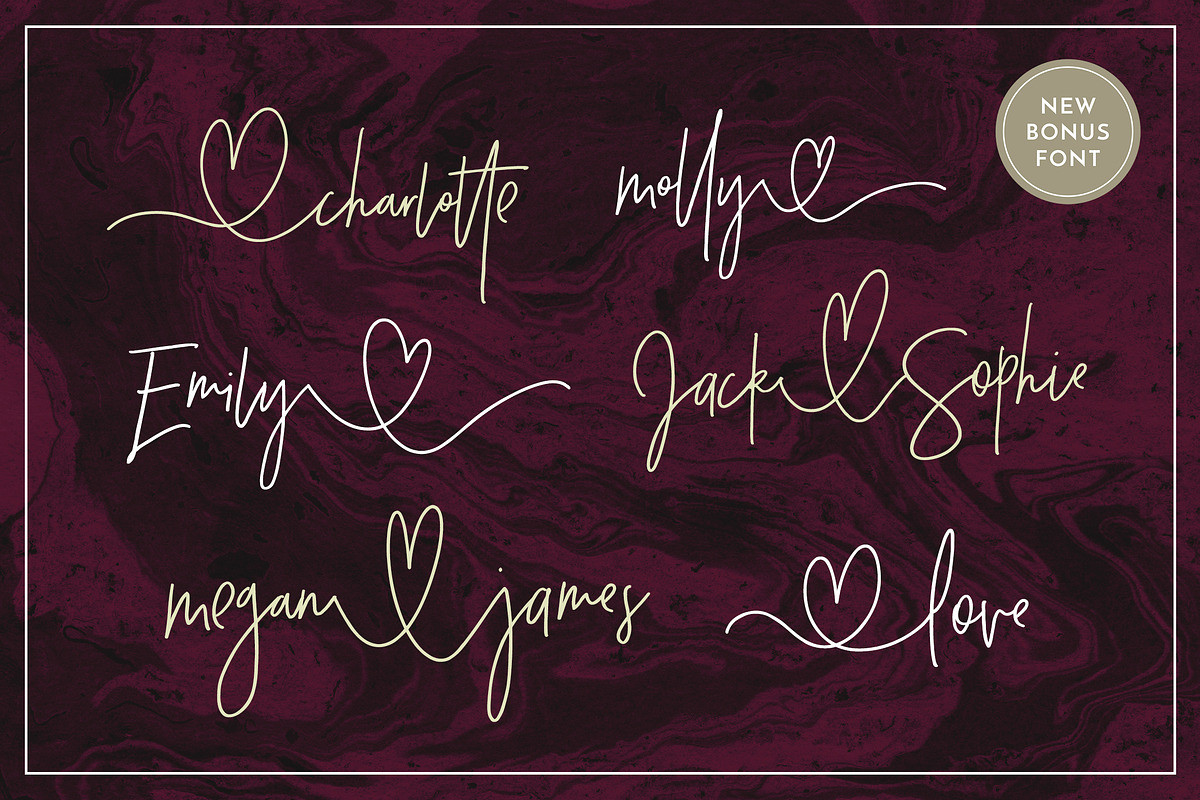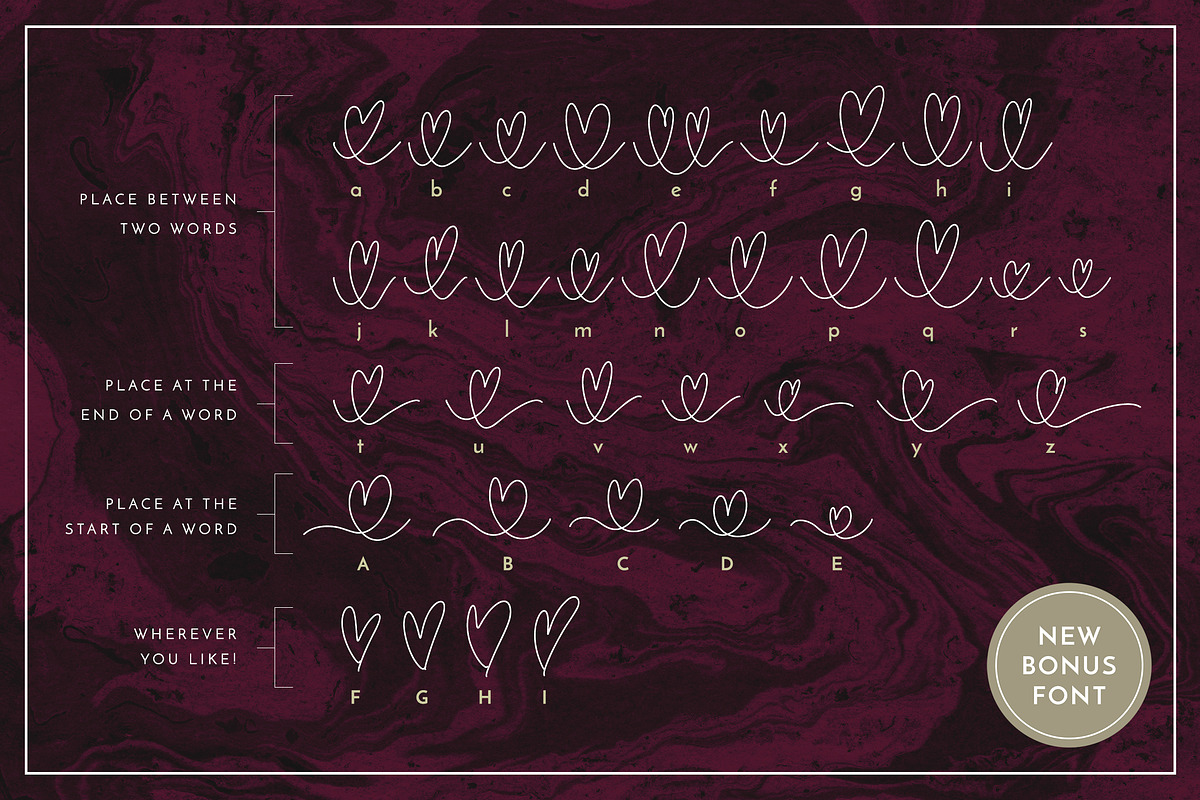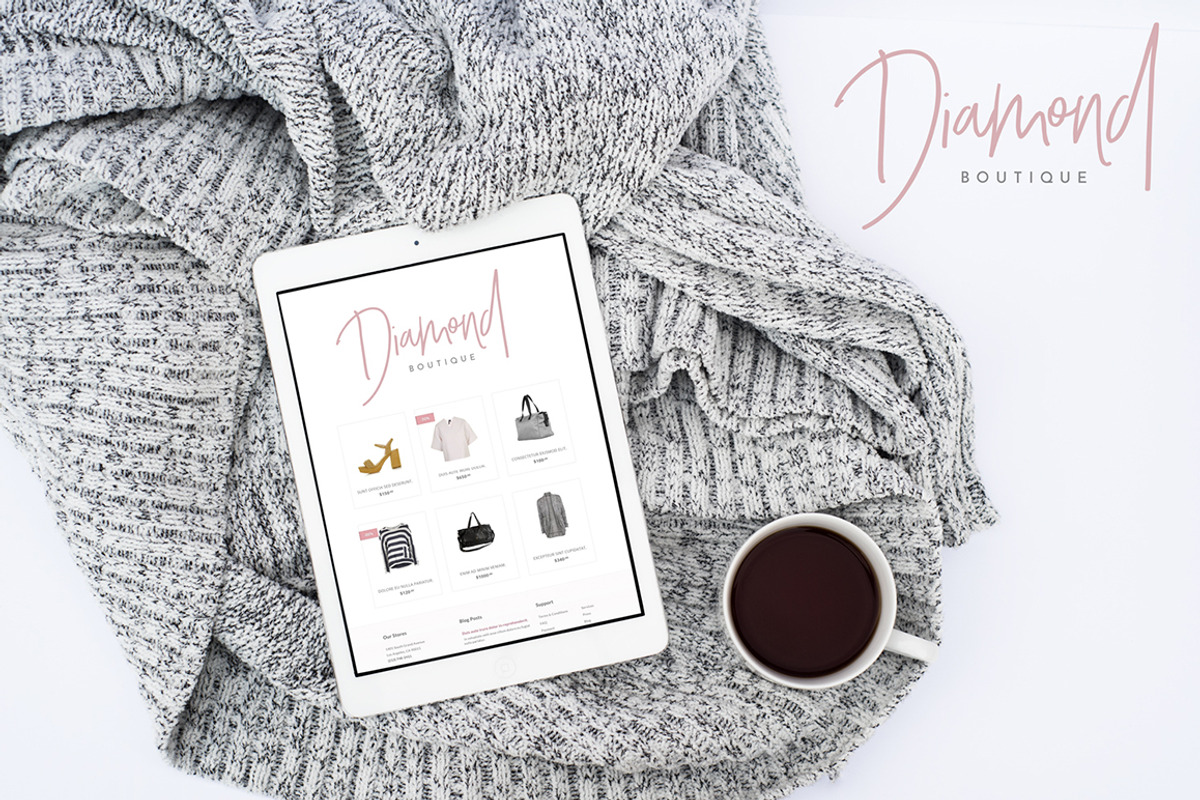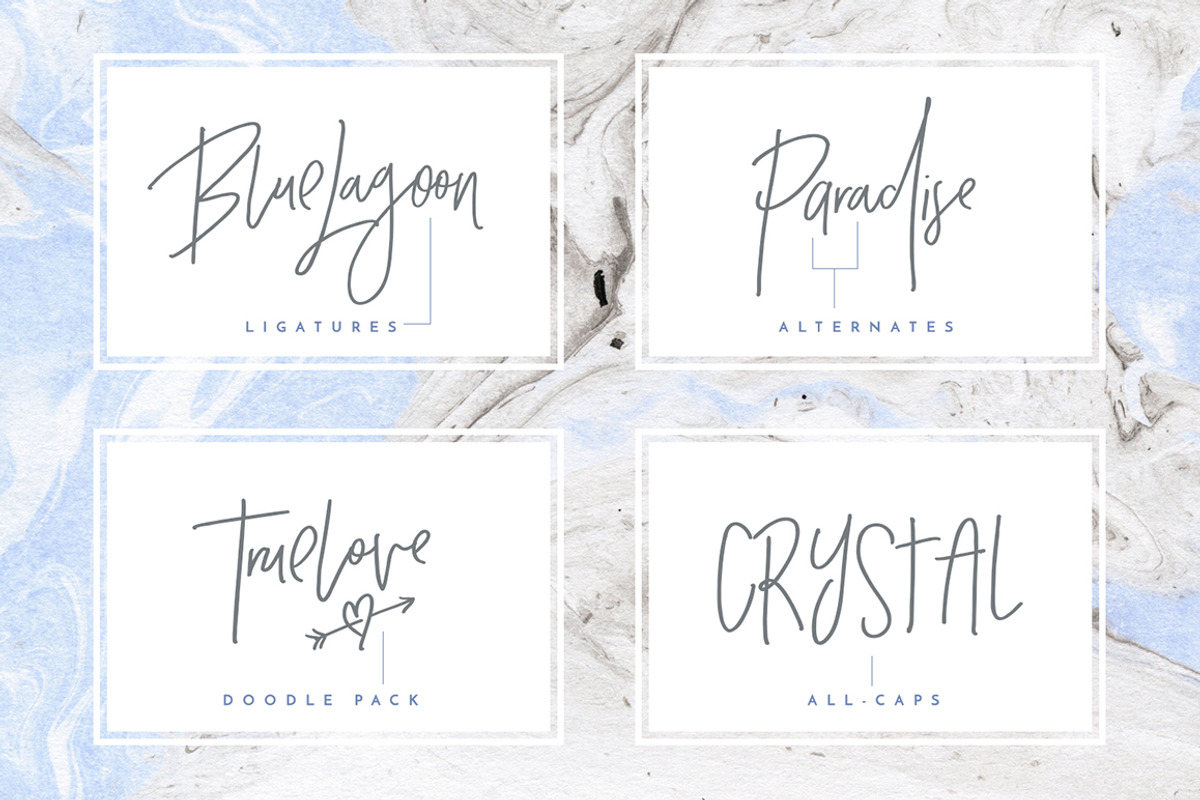
Crystal Sky Font (New Update!)
Crystal Sky Font (New Update!) by Sam Parrett is a font selected for branding, posters, packaging, typography.
- Add some passion to your Crystal Sky text with Crystal Sky Hearts, a new font included in your download!
- Crystal Sky is packed full of great features to give you plenty of customisation options; Lowercase Alternates • Crystal Sky comes with an e
- That's why I've included a totally separate set of A-Z letters - designed to work in harmony with each other during those moments when you n
- Large Glyph Set • Crystal Sky comes with a large range of glyphs including punctuation, numerals, international language support, ligatures
Why Crystal Sky Font (New Update!) is worth a look
Crystal Sky Font (New Update!) by Sam Parrett fits naturally into Branding, posters, packaging, typography.